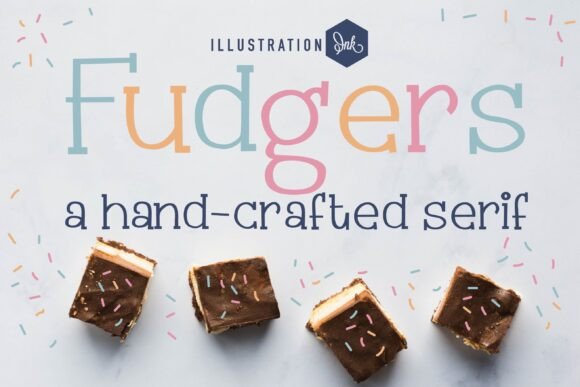
Fudgers Font: Hand-Printed Serif for Digital Campaigns
In the competitive landscape of digital marketing, capturing attention within milliseconds is the primary objective for content creators and social media managers. Fudgers is a hand-crafted font that serves as a strategic visual asset for marketers seeking to differentiate their brand voice through authentic typography. Unlike standard system typefaces that can feel sterile or overly corporate, this hand-printed font with slab serifs throughout introduces a tactile, human element to digital interfaces. For marketing specialists designing scroll-stopping visuals, the unique texture of Fudgers provides an immediate psychological cue of craftsmanship and personal attention, which is essential for building trust in ad creatives, email headers, and landing pages.
Fudgers for Social Media Graphics and Engagement
When creating content for fast-scrolling feeds, Fudgers and other distinctive serif fonts act as visual anchors that disrupt pattern blindness in users. Social media algorithms favor content that generates dwell time, and the intricate details of this hand-crafted font encourage viewers to pause and process the message. The slab serif structure inherent in Fudgers offers substantial weight, making it highly legible even when scaled down for Instagram carousels or Pinterest pins. Marketers can leverage this boldness to highlight key value propositions or emotional hooks without resorting to aggressive, all-caps sans serifs that often trigger ad fatigue. By utilizing the organic imperfections of this typeface, brands can create social graphics that feel native to user-generated content while maintaining professional polish, effectively bridging the gap between paid advertising and organic community building.
Optimizing Readability in Thumbnails and Reels Covers
Video content strategies rely heavily on static cover images to drive click-through rates, making Fudgers an excellent choice for YouTube thumbnails and Reels covers where clarity is paramount. The slab serifs provide necessary anchor points for the eye, ensuring that titles remain readable against complex video backgrounds or busy photographic elements. Because this hand-printed font was designed to look like it was written by hand, it carries a dynamic energy that static digital fonts lack, signaling to the viewer that the content inside is personal and curated rather than automated. Content creators should utilize high-contrast color pairings when applying Fudgers to video covers to maximize accessibility and ensure the text pops on mobile screens. This specific typographic choice signals authenticity, which is a critical metric for audience retention in influencer marketing and personal branding campaigns.
Fudgers for Wedding Invitations and Elegant Branding
While digital performance is crucial, Fudgers remains deeply rooted in its original utility as a premium font for invitations, greeting cards, and high-touch brand experiences. Marketing teams in the lifestyle, wedding, and boutique retail sectors can deploy this hand-crafted font to evoke nostalgia and warmth in both print and digital collateral. The slab serifs throughout the character set provide a modern counterpoint to traditional scripts, allowing brands to communicate elegance without appearing outdated or stuffy. When used in digital invitations or RSVP landing pages, Fudgers maintains its structural integrity across devices, ensuring that the premium feel of the event translates seamlessly from screen to paper. This versatility makes it a cost-effective design asset for agencies managing multi-channel campaigns for clients who require consistency across physical stationery and web-based event hubs.
Elevating Email Marketing Headers and Newsletters
Email marketers constantly seek ways to increase open rates and reduce unsubscribe fatigue, and incorporating Fudgers into header designs can significantly refresh a newsletter’s visual identity. Standard web-safe fonts often blend into the background of a crowded inbox, but the distinct personality of this hand-printed font creates immediate brand recognition before the subscriber even reads the body copy. The slab serif construction ensures that headlines render clearly in various email clients, avoiding the rendering issues sometimes associated with delicate script fonts. By using Fudgers for section dividers, pull quotes, or promotional banners within emails, marketers can break up dense text blocks and guide the reader’s eye toward conversion points. This typographic strategy transforms transactional emails into branded experiences, reinforcing customer loyalty through consistent, aesthetically pleasing communication.
Strategic Font Pairing with Fudgers for Ad Creatives
To maximize the impact of Fudgers in paid media, designers must pair it with complementary typefaces that support conversion goals without competing for attention. As a display font with strong character, Fudgers works best when anchored by a clean, neutral sans serif font for body copy and call-to-action buttons. This contrast establishes a clear visual hierarchy: Fudgers captures the emotion and interest, while the supporting sans serif delivers the logistical details and functional information. Alternatively, pairing Fudgers with a minimalist serif font can create an editorial, magazine-style aesthetic suitable for fashion, beauty, or wellness brands. Avoid pairing this hand-crafted font with other decorative or script fonts, as the visual noise will reduce readability and dilute the marketing message. Effective font pairing ensures that the artistic qualities of Fudgers enhance, rather than hinder, the user journey toward purchase or sign-up.
Enhancing Brand Identity with Hand-Printed Typography
Brand differentiation in saturated markets often hinges on micro-details, and Fudgers offers a unique opportunity to infuse brand identity with tangible personality. The hand-printed nature of this serif font communicates values of authenticity, care, and artisanal quality that are difficult to achieve with geometric or neo-grotesque typefaces. For small businesses and creators, using Fudgers in logo marks, packaging design, or website hero sections signals a departure from mass-market genericism. This typographic choice acts as a non-verbal communicator of brand ethos, aligning visual presentation with messaging about sustainability, handmade goods, or personalized services. Consistency is key; integrating Fudgers into a comprehensive brand style guide ensures that every touchpoint, from business cards to TikTok overlays, reinforces a cohesive and memorable market position.
Best Practices for Mobile-First Display Typography
With the majority of digital consumption occurring on mobile devices, optimizing Fudgers for small screens is a non-negotiable aspect of modern campaign design. While slab serifs generally perform well at smaller sizes, the hand-crafted irregularities of this font require careful testing to prevent letterforms from merging or becoming muddy on low-resolution displays. Marketers should prioritize generous tracking (letter-spacing) and adequate line height when using Fudgers in mobile banners or app interfaces to preserve legibility. Limiting the use of this hand-printed font to short headlines, single-word emphasis, or decorative accents prevents cognitive overload and maintains fast load times. By treating Fudgers as a strategic accent rather than a workhorse text face, designers ensure that the mobile user experience remains frictionless while still benefiting from the font’s distinctive engagement potential.